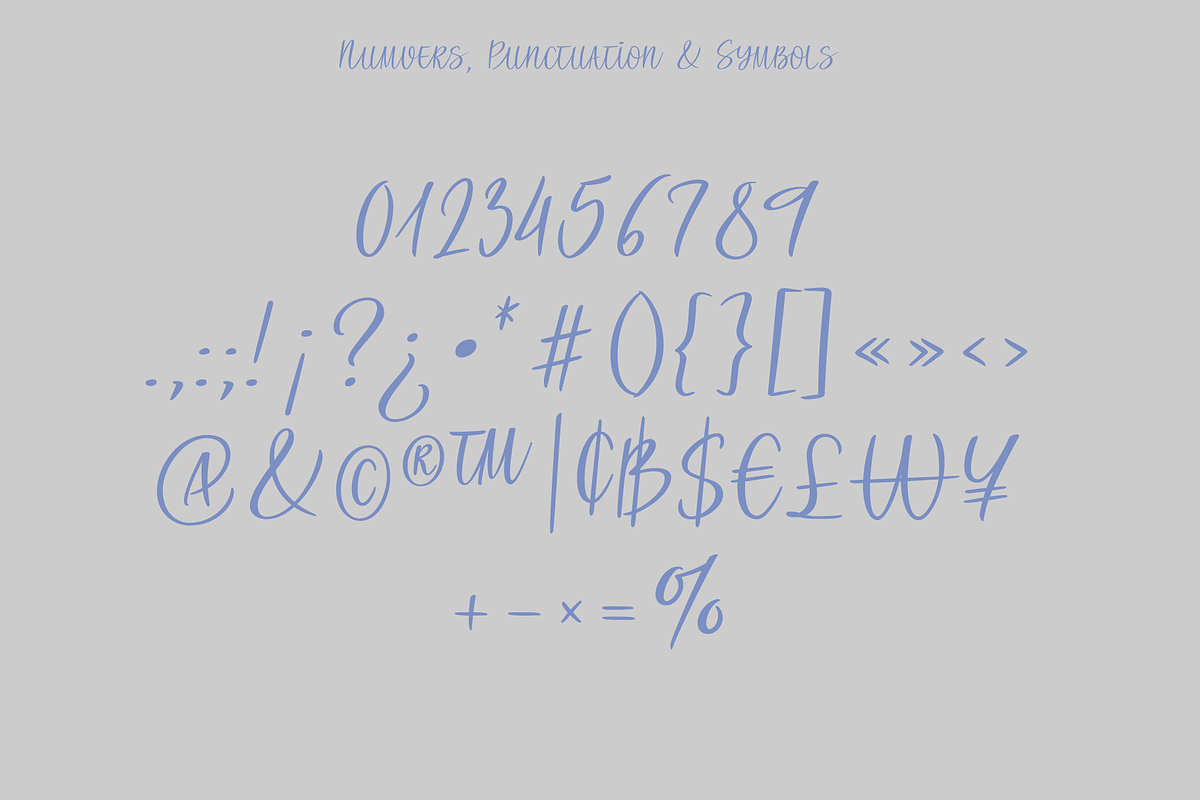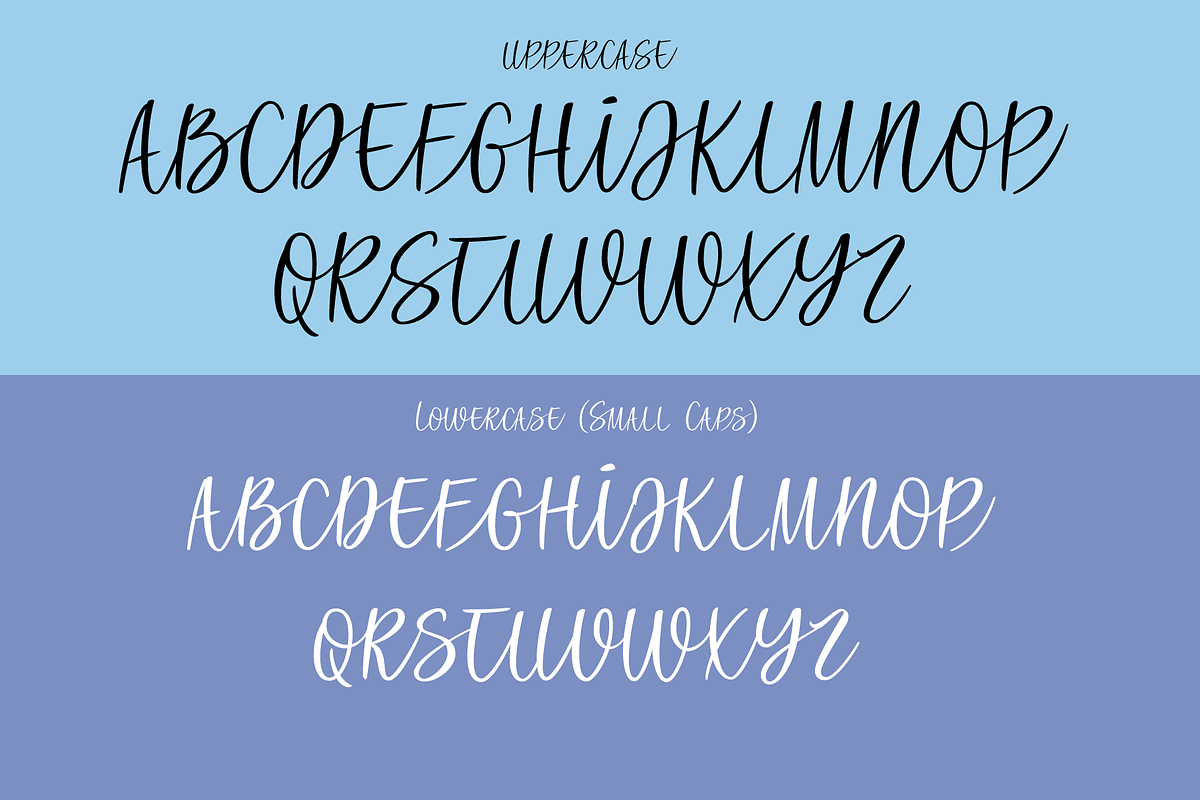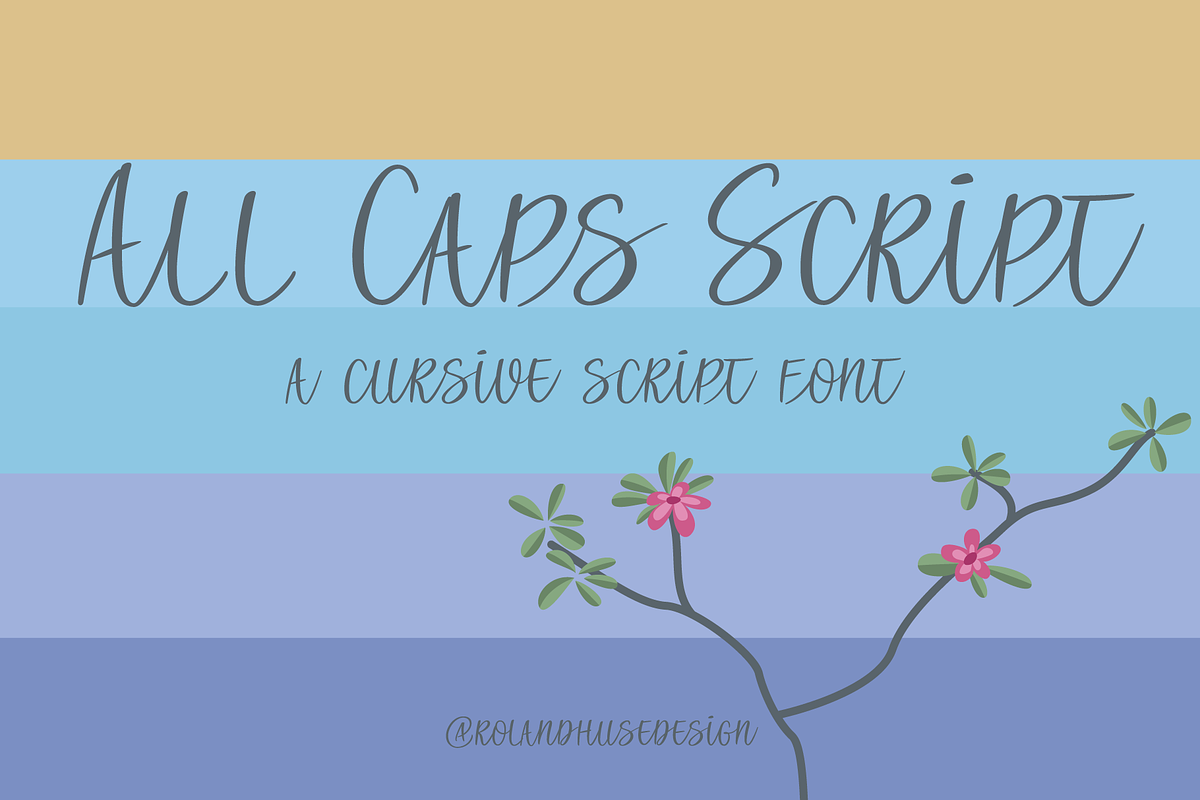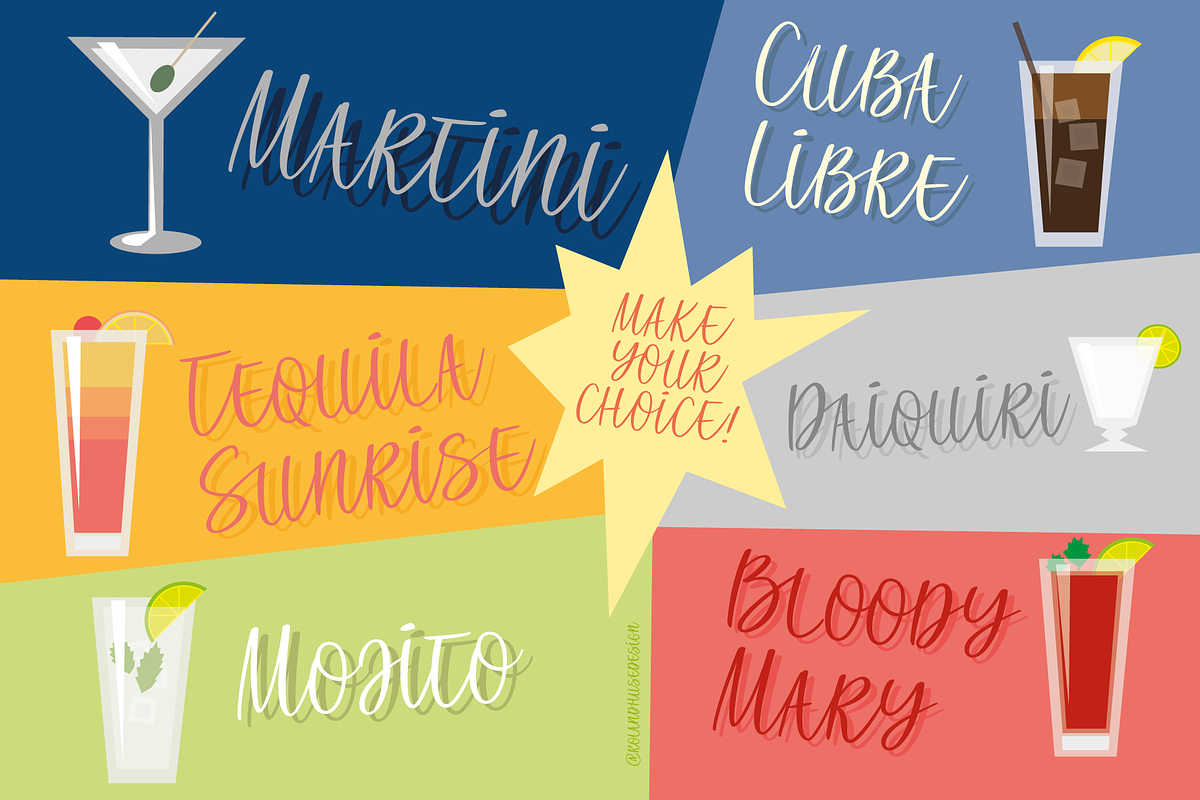
All Caps Script
"You are not supposed to type All Capitals with most cursive script fonts". Because it doesn't look good. This font is designed specifically with that idea in mind, to type all capitals, even lowercase letters are small caps. Finally you can type all caps with a connecting script! Make your designs stand and (shout) out with them! Here is the font for your next fun creative project! Enjoy and make awesome designs with it! Contains western, eastern and central european accented characters, symbols and basic punctuation.